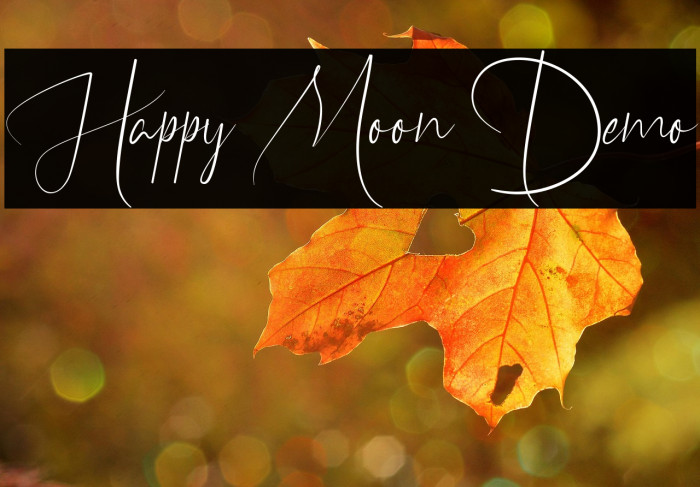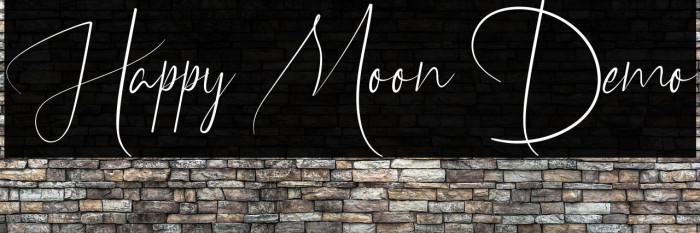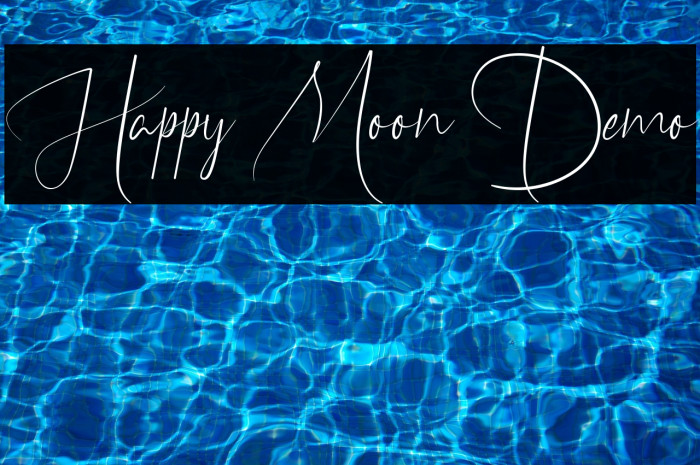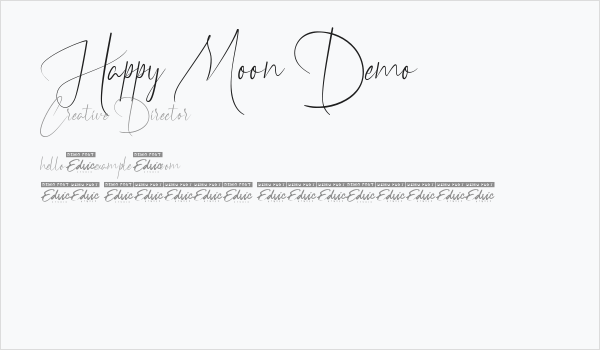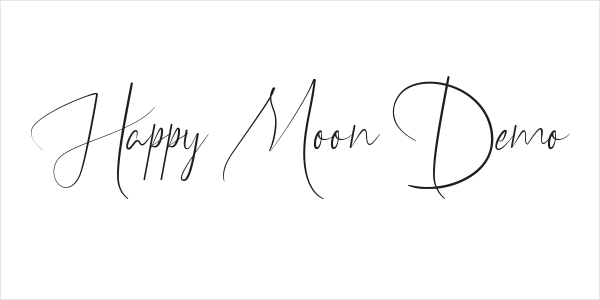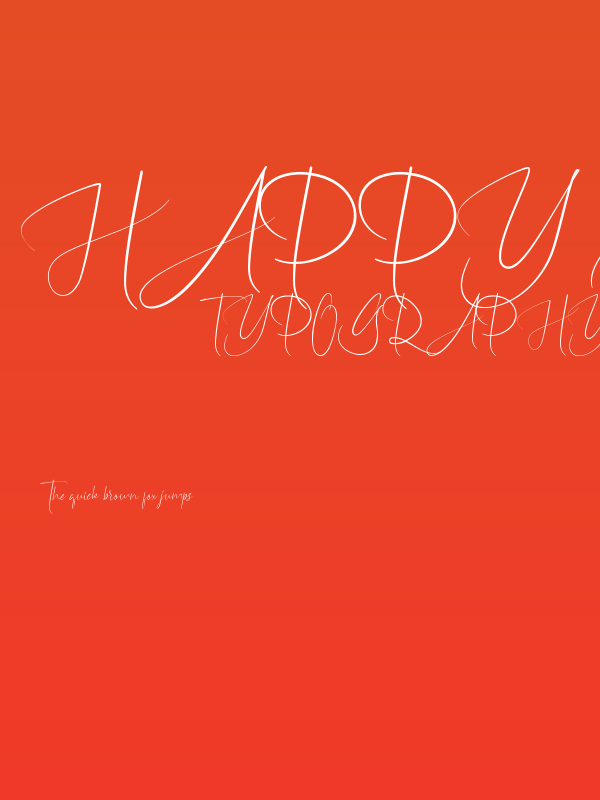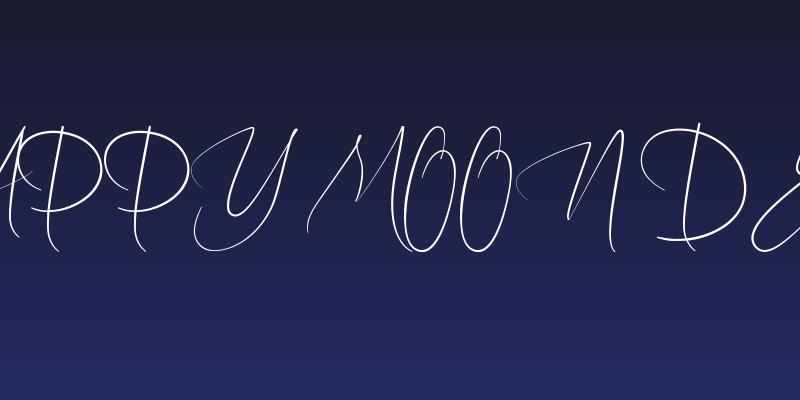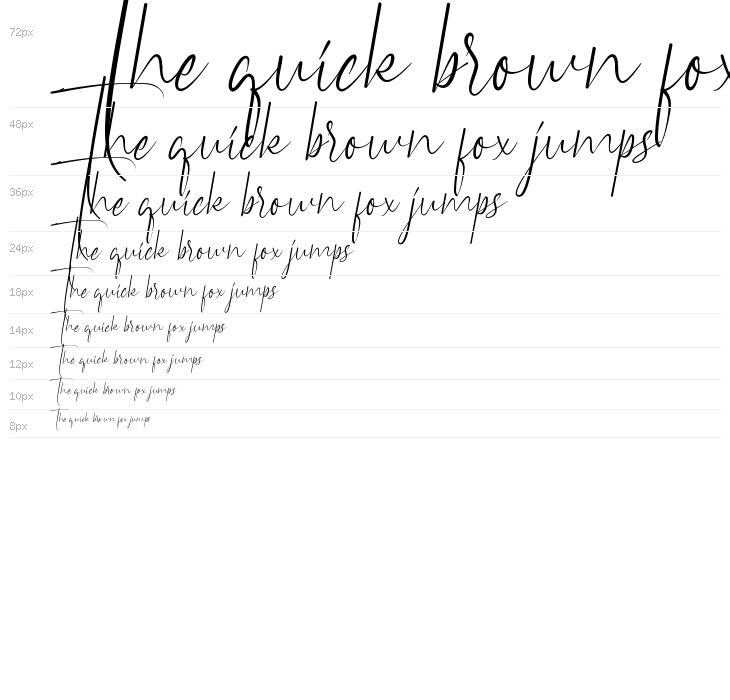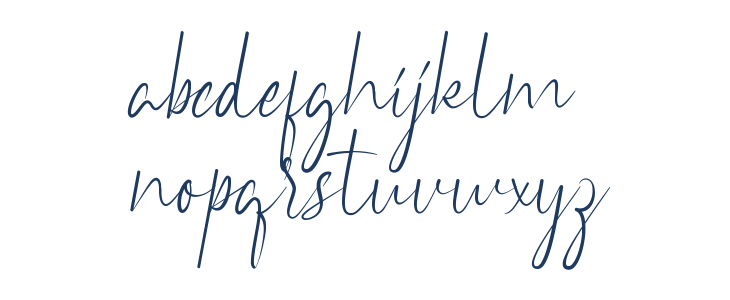
Happy Moon Demo Font
Happy Moon Demo Description
This font features a flowing, cursive style that exudes elegance and sophistication. The uppercase letters are tall and slender, with graceful curves and loops that give them a sense of movement. The lowercase letters maintain a consistent flow, with smooth connections between each character, creating a harmonious and fluid appearance. The font's overall design is reminiscent of classic calligraphy, yet it has a modern twist that makes it versatile for various design projects. The thin strokes and delicate lines add a touch of refinement, making it suitable for formal and creative applications alike.